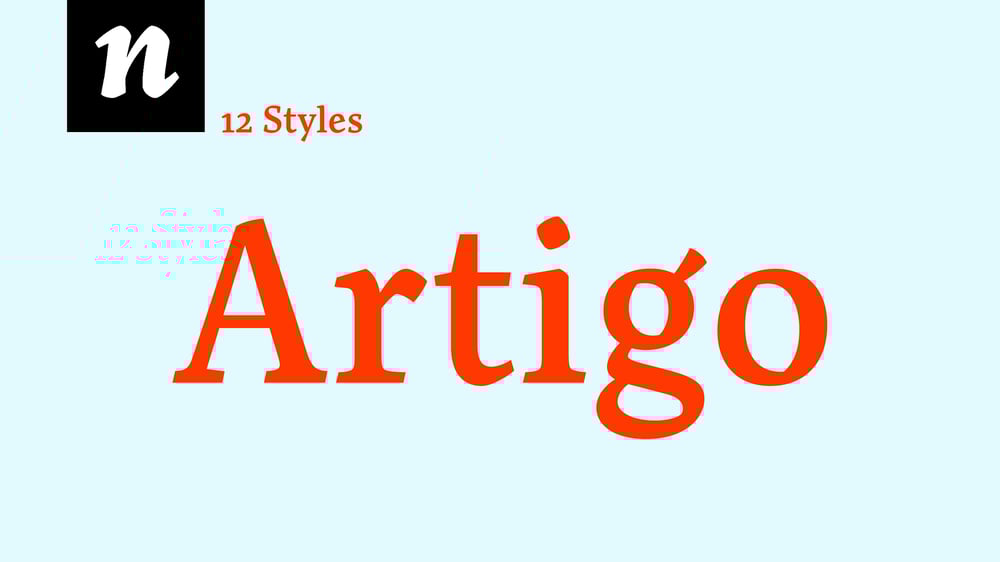
Artigo
Artigo font
Artigo Font Family was designed by Joana Correia and published by Nova Type Foundry. Artigo contains 12 styles and family package options. Artigo is an old style inspired typeface system for text. It was inspired by the handwriting aspect of the first roman types but it intends to be a contemporary interpretation. Its abilities are in small text with personality. The italics capture a lot of its dynamic feeling even more expressive on the display version that stands as the most handwritten one. It gives text a lot of personality and great readability.